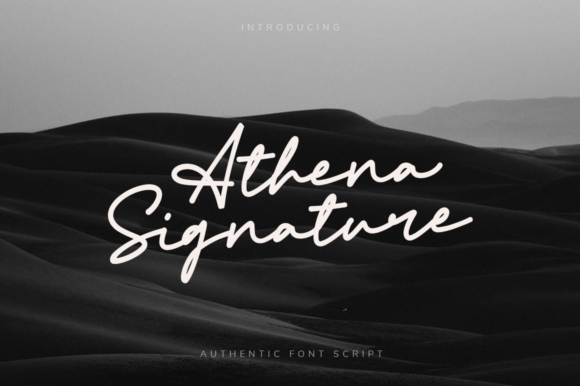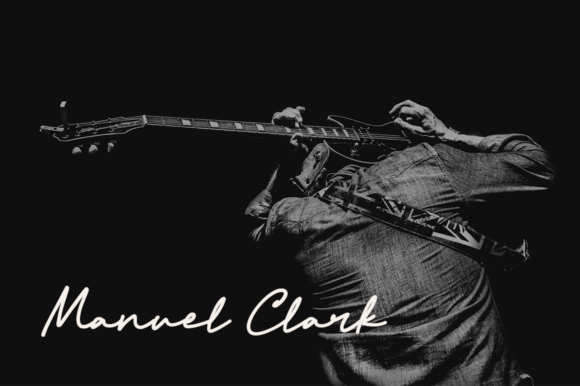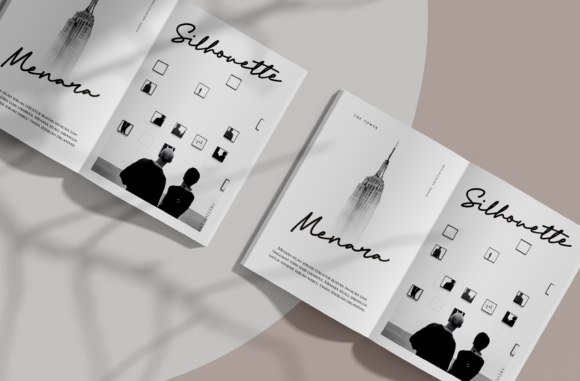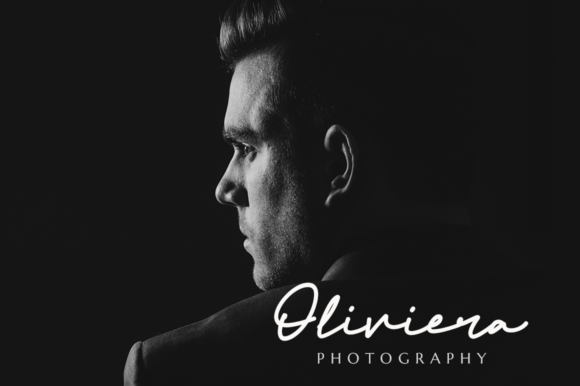
Athena Signature Font
About the Athena Signature Font
From logos to headlines, the Athena Signature Font is the perfect choice for making a lasting impression. Athena Signature is an authentic and stylish script font. Not too thin and not too thick, balanced and varied, this font was designed to enhance the beauty of your projects.
Athena Signature’s balanced strokes make it ideal for logos, short headlines, invitations, and other applications requiring a touch of elegance without sacrificing readability. It works particularly well in branding for businesses emphasizing sophistication and quality, such as boutique hotels, high-end fashion, or artisanal food products. Avoid using it for large blocks of text or body copy; its script nature isn’t well-suited for extended reading.
Pairing Athena Signature with a clean sans-serif like Montserrat for body text creates a strong visual hierarchy. For a more traditional feel, consider a complementary serif like Garamond. A geometric sans-serif such as Futura could also provide a striking contrast, highlighting Athena Signature’s organic forms.
The overall personality of Athena Signature is sophisticated and refined, conveying a sense of timeless elegance and understated luxury. Its versatility allows it to adapt to various design contexts while maintaining a consistent level of visual appeal.